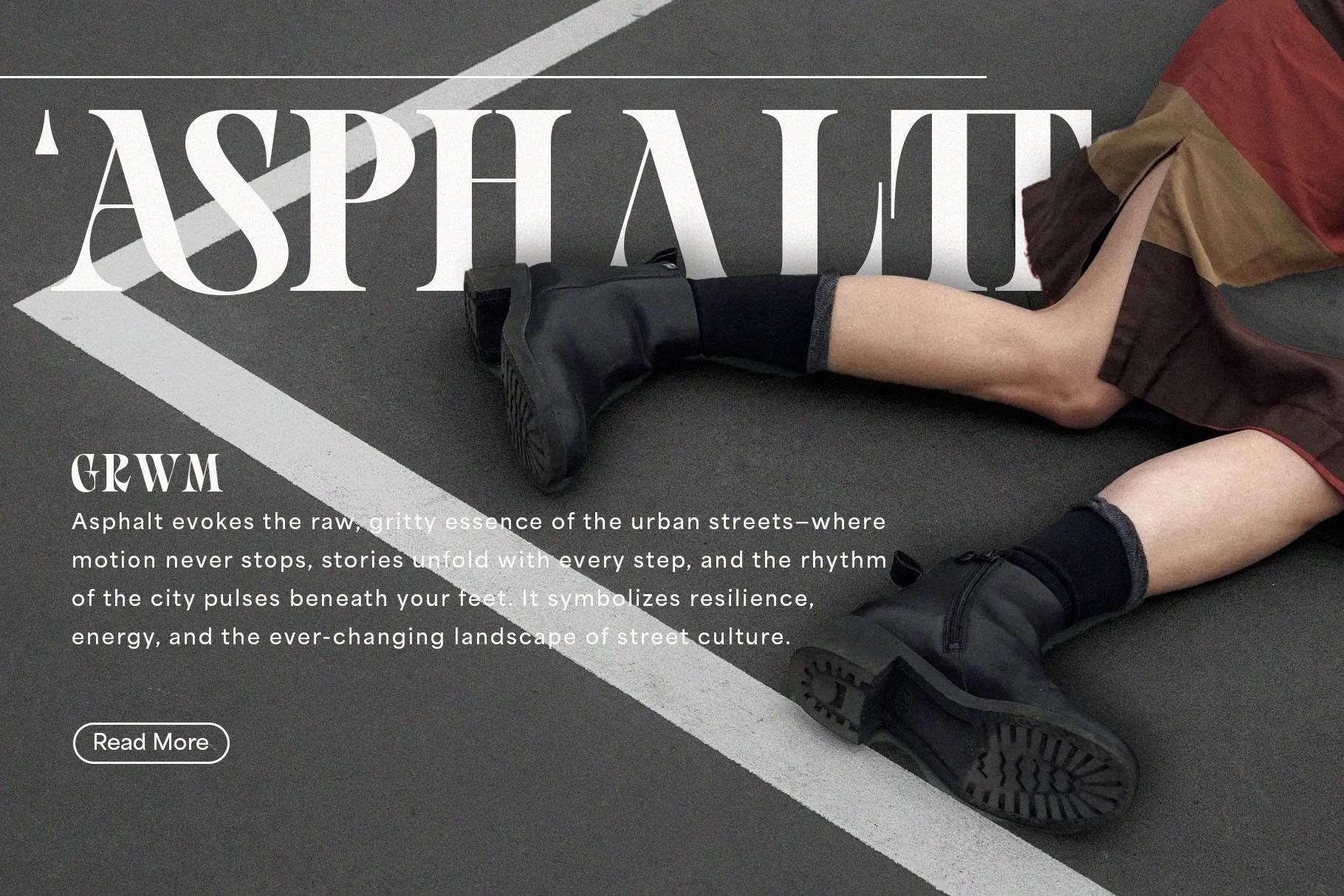
Gerisska by BrandSemut. This is a uniquely stylish serif font that is full of character and artistic flair. It masterfully blends classic typographic traditions with a fresh, modern sensibility. BrandSemut designed this font to be both expressive and highly functional. It gives your projects a distinct and memorable personality from the very first glance. Gerisska is perfect for creatives who want to stand out from the crowd with a touch of sophistication.
This font excels in projects that require a touch of artistry and elegance. Specifically, it is a wonderful choice for logos and branding for creative businesses like design studios or fashion labels. It helps to communicate a unique and sophisticated identity. Furthermore, this stylish serif font is perfect for magazine headlines and book covers. Its excellent legibility and artistic flair make it compelling for readers. Use it for any project where you want to add a layer of elegance and personality, such as invitations, packaging, or restaurant menus.
• Unique and stylish serif style
• Features high-contrast, expressive letterforms
• Ideal for branding, logos, and editorial design
• Blends classic and modern aesthetics
Gerisska